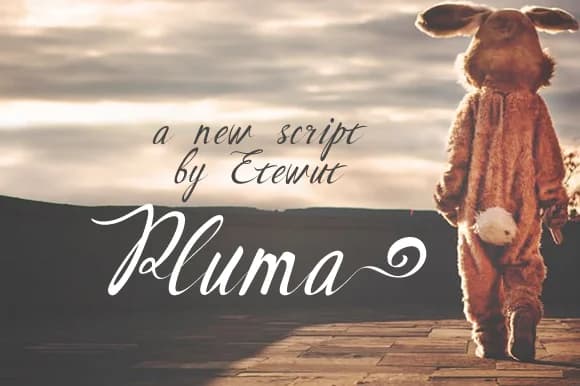
Pluma is a hand-lettered script typeface by Etewut that infuses designs with the genuine character of personal penmanship. Its flowing strokes and organic letterforms capture that distinctive warmth found in authentic handwriting, making it an exceptional choice for creative projects seeking a human, sophisticated voice without relying on trendy formulas.
This font shines in specific applications where personality and craftsmanship matter most: creating wedding invitation suites that feel personally signed, designing Etsy product labels for handmade goods and artisan brands, crafting boutique skincare and cosmetic packaging that stands out, and lettering DIY craft signs for small retail spaces and pop-up shops. Pluma's legible yet artistic structure works equally well for blog post headlines, custom greeting cards, and brand identity design where approachability and authenticity strengthen the overall message.
Pluma Font is a script font that shines as a display or heading face. Pair it with a clean sans-serif or serif font for body text β the contrast creates a clear hierarchy while the two styles stay balanced and easy to read.
Pluma Font
by Etewut